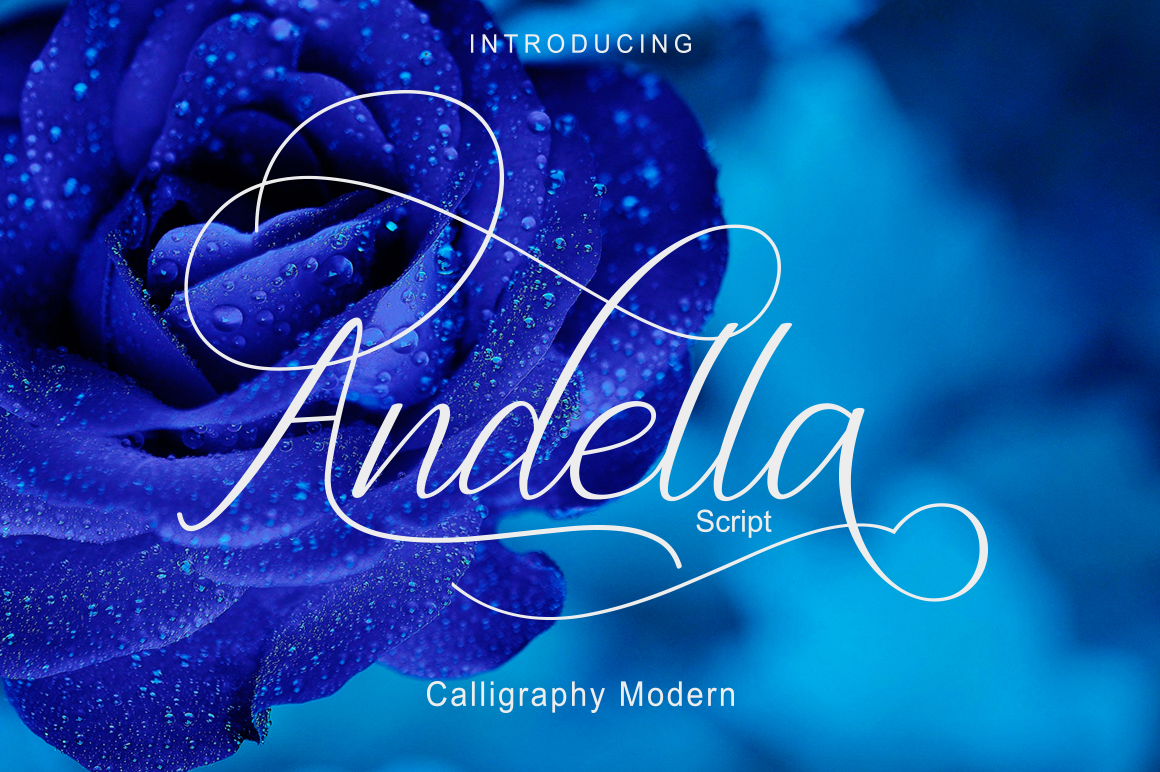
The Quest for the Perfect Font: Discovering Andella Script
I still remember the frustration of working on a project, hours spent crafting the perfect design, only to be held back by one thing: the font. My client wanted something elegant, yet modern; something that screamed creativity, yet remained professional. I scoured the internet, tried countless fonts, but nothing seemed quite right. That was until I stumbled upon Andella Script. ✨
As a designer, I’ve learned that the right font can make or break a project. Andella Script has become one of my go-to fonts, and for good reason. In this article, I’ll share my experience with Andella Script, its features, and how to make the most of it in various design platforms.
Andella Script: A Modern Handmade Masterpiece
Andella Script is a stunning modern handmade font with a calligraphic style. It’s packed with stunning swashes, making it perfect for projects that require a touch of elegance. The font is completely drawn by hand and digitally perfected, giving it a unique, organic feel. βœ…
• Unique, handmade calligraphic style
• Packed with stunning swashes and glyphs
• Perfect for elegant, modern designs
• Works well for titles, headings, and short texts
The Not-So-Good: ⚠️
• Might be overwhelming for longer texts due to its ornate style πŸ€”
• Some swashes might not work well in smaller font sizes
The Story Behind Andella Script
Andella Script was created with the intention of capturing the essence of handmade calligraphy in a digital font. The designer aimed to create a font that would be both elegant and modern, with a unique character that sets it apart from more traditional fonts. Through careful craftsmanship and attention to detail, Andella Script was born – a font that embodies the beauty of handwritten calligraphy with the precision of digital design.
Q: Is Andella Script suitable for body text?
A: While Andella Script is beautiful, it’s primarily designed for titles, headings, and short texts. Its ornate style might be overwhelming for longer texts. βœ…
Q: Does Andella Script support OpenType features?
A: Yes, Andella Script supports OpenType features like swashes, glyphs, and stylistic alternates. This allows for a high degree of customization and creative freedom. 🎨